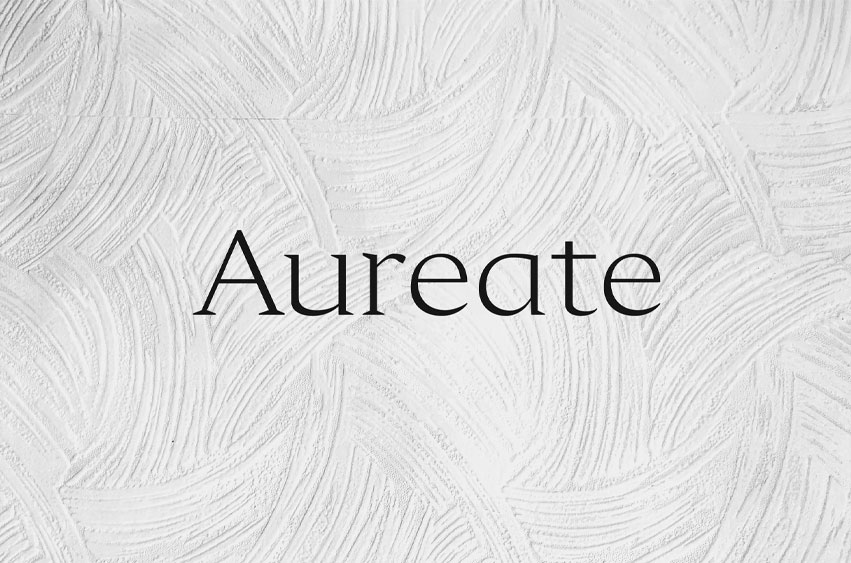
Aureate Font
Aureate Font is a classic, Roman-style, serif typeface. It has a little bit of personality and can be used for body copy, but was mainly created for headers. This font family includes all Latin characters (including accents), numbers, special characters, and punctuation.